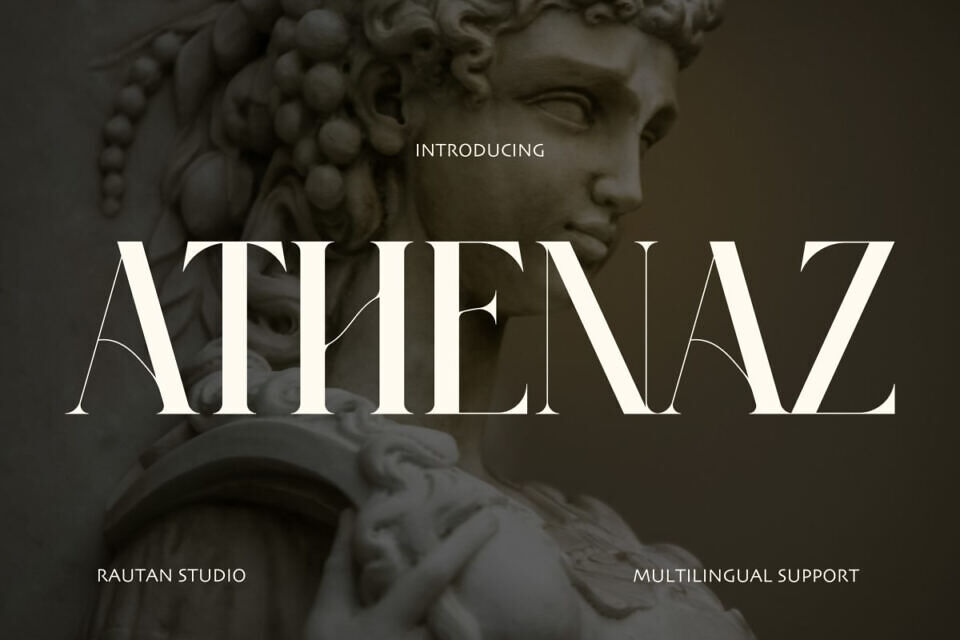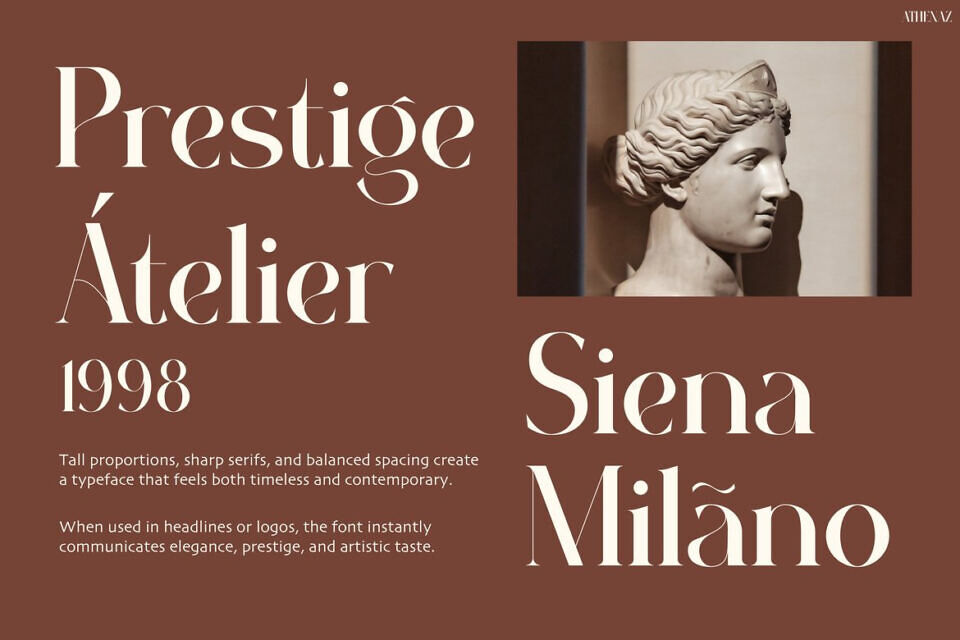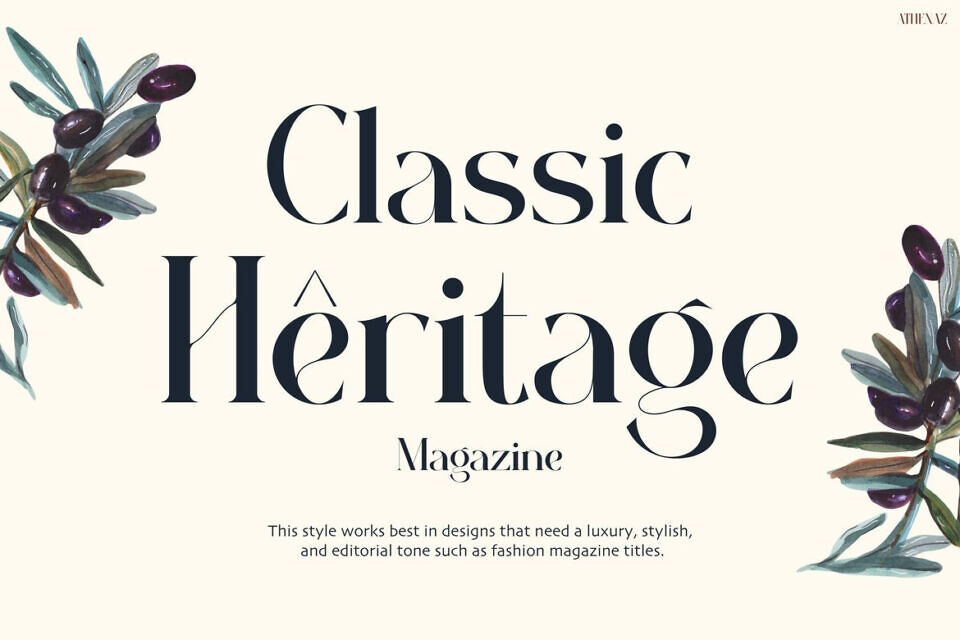
Athenaz Font exudes sophistication, drawing from classic European magazine design. Its modern serif style balances bold strokes with delicate lines, creating visual harmony. Sharp serifs and refined letterforms make headlines stand out.
The font’s elegant structure and proportions evoke a premium feel, suitable for modern design. With clarity in both print and digital formats, Athenaz supports 67 languages, enabling creators to convey their message beautifully to a global audience.